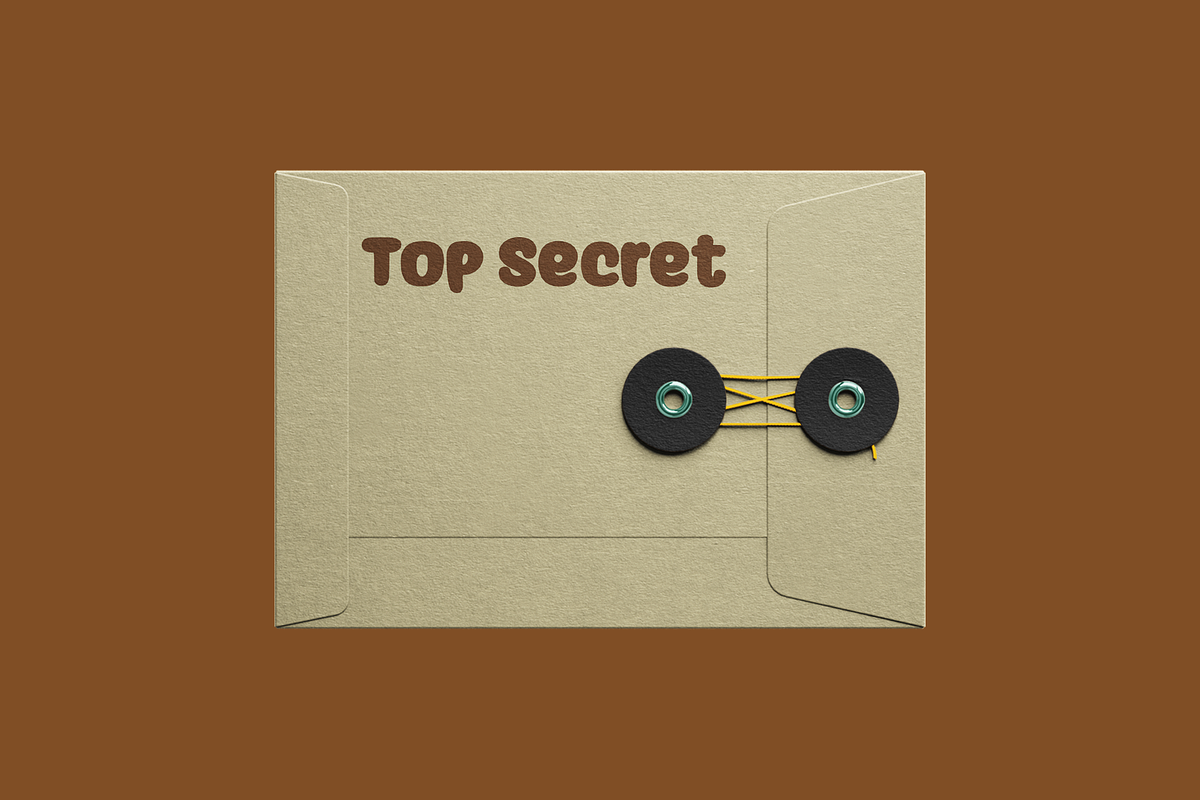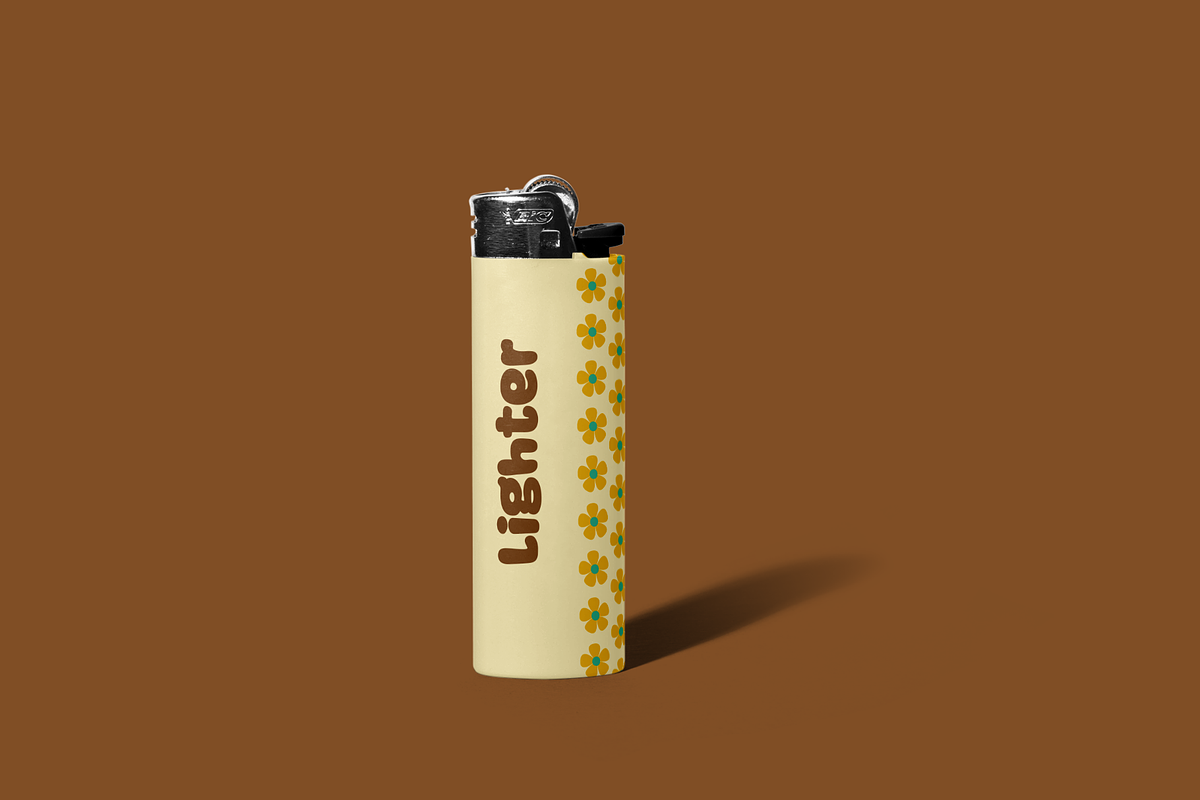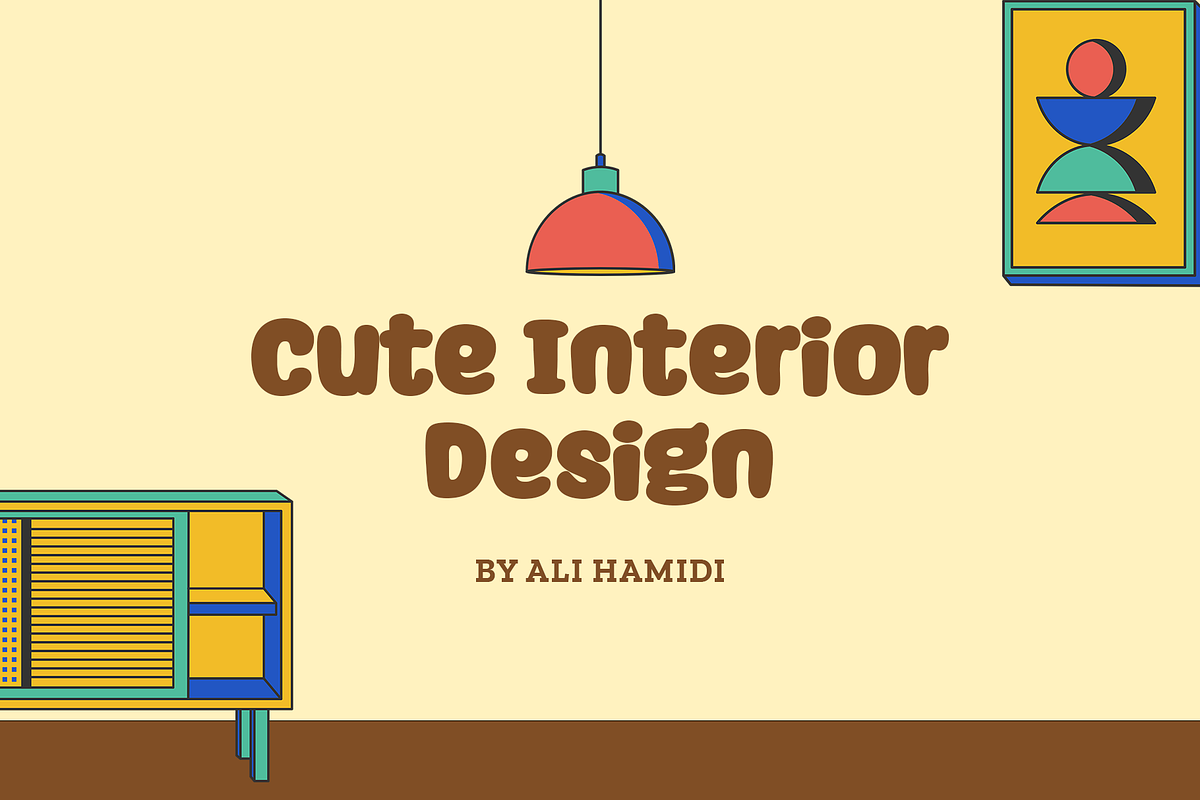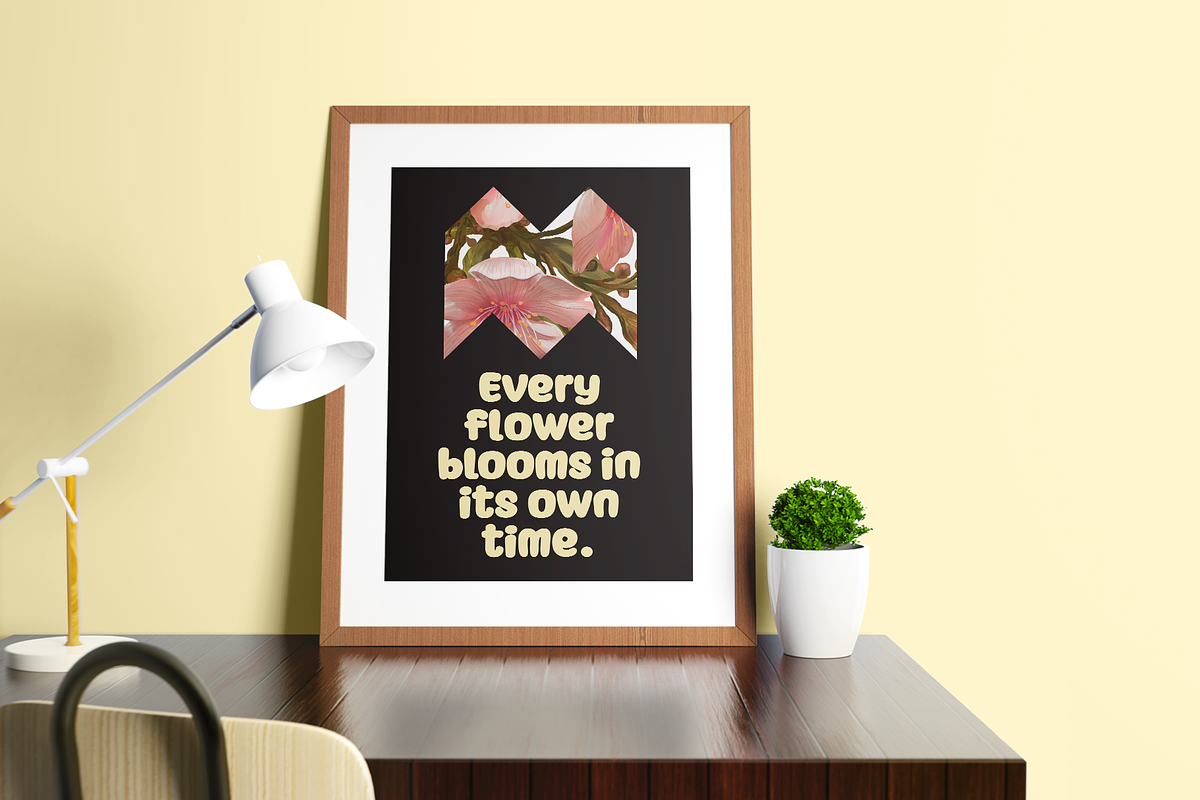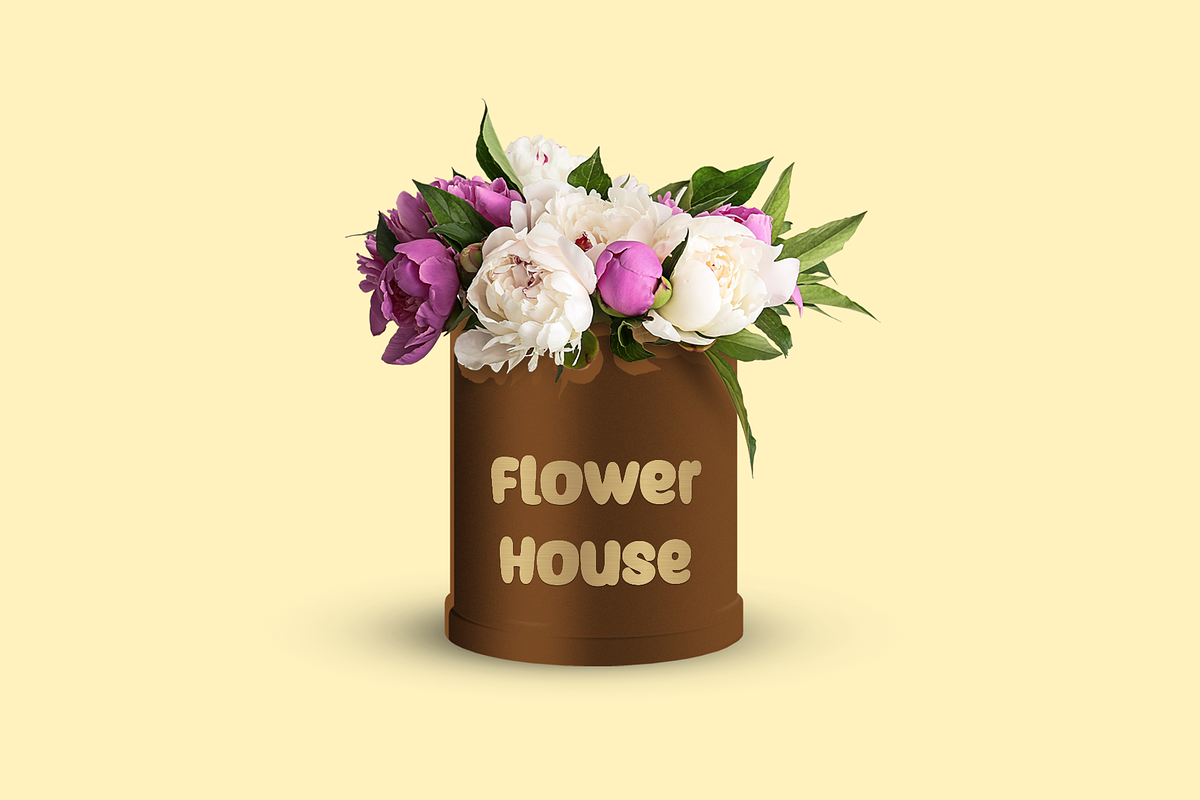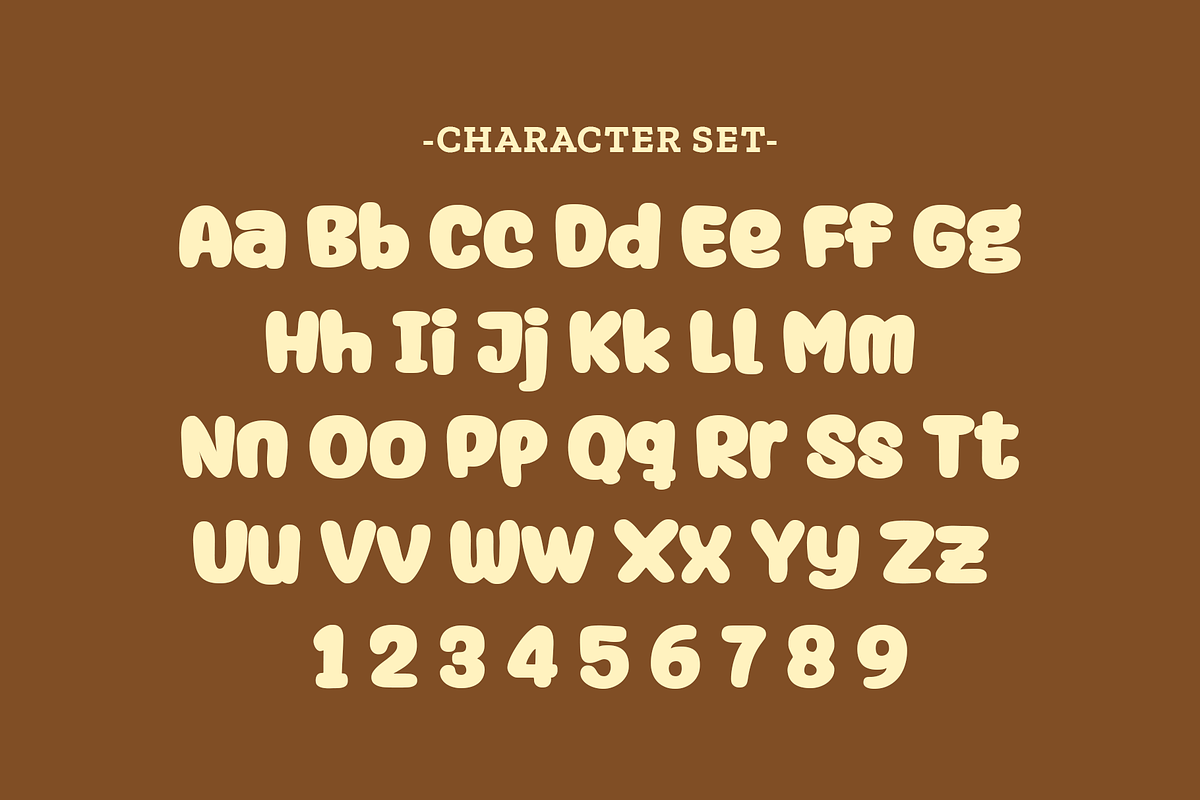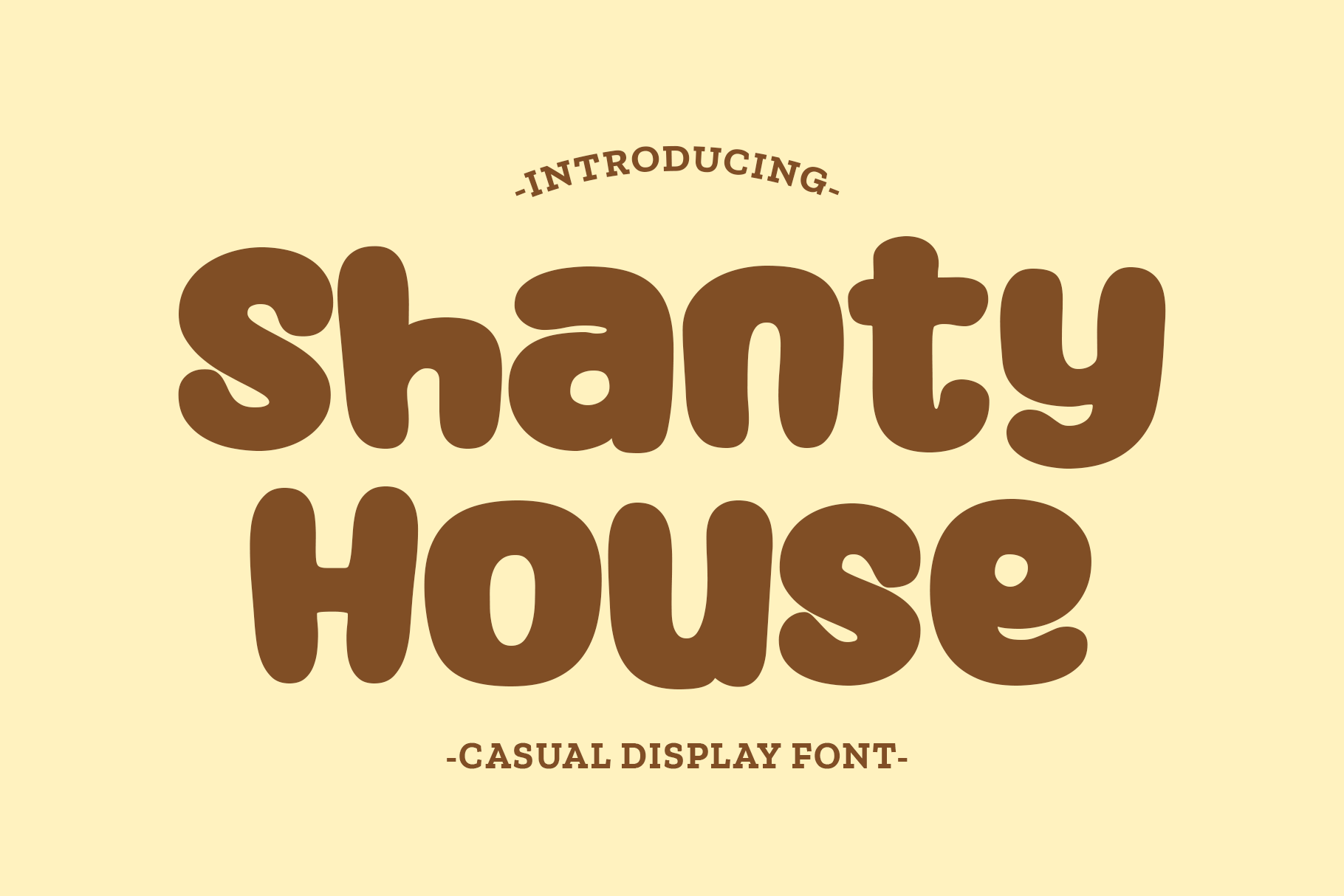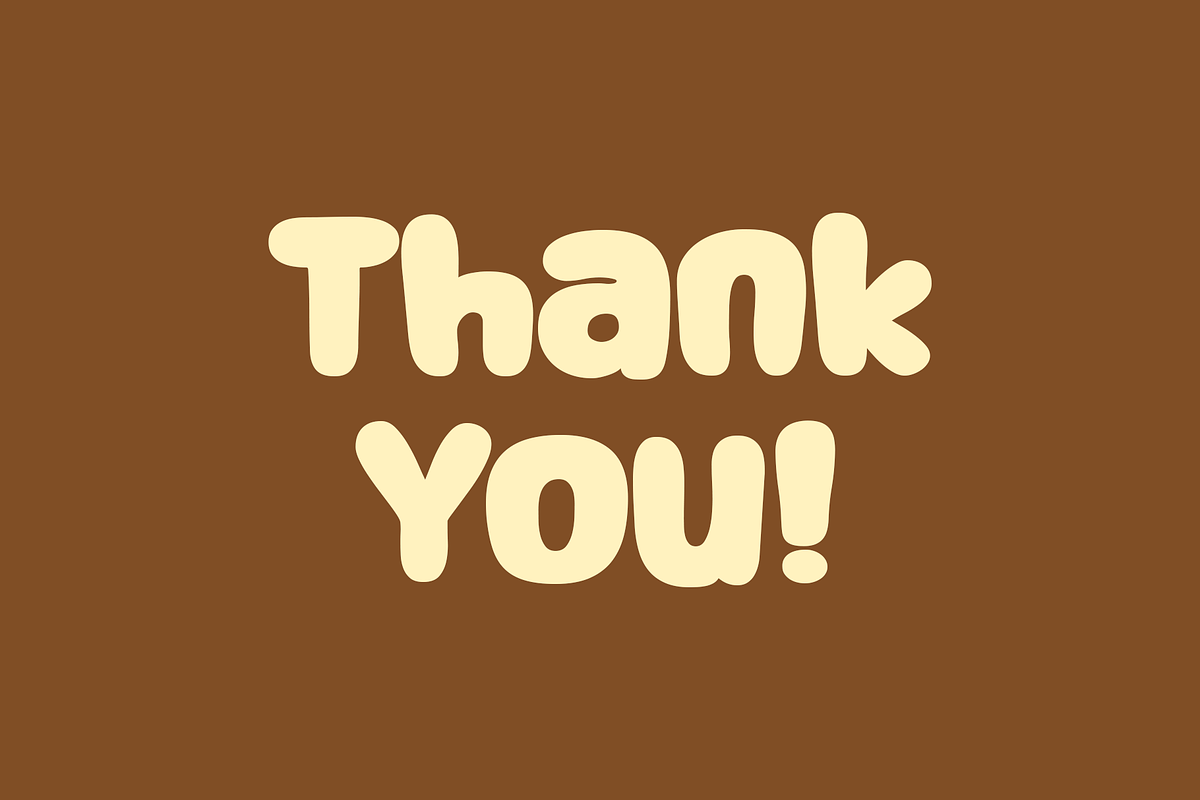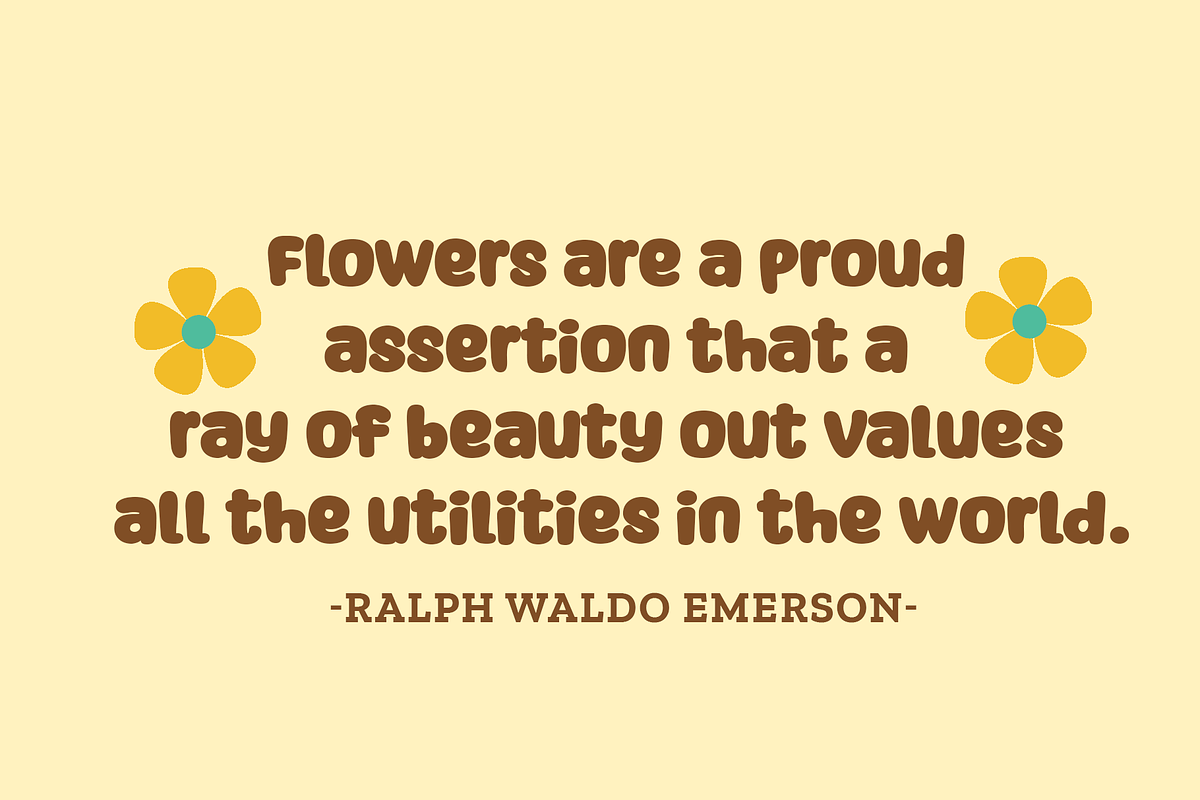
Shanty House Font
Shanty House is a chunky, fun, cartoon, comic and whimsical handwritten font. A little bit quirky, this font looks incredibly adept in a wide variety of contexts!